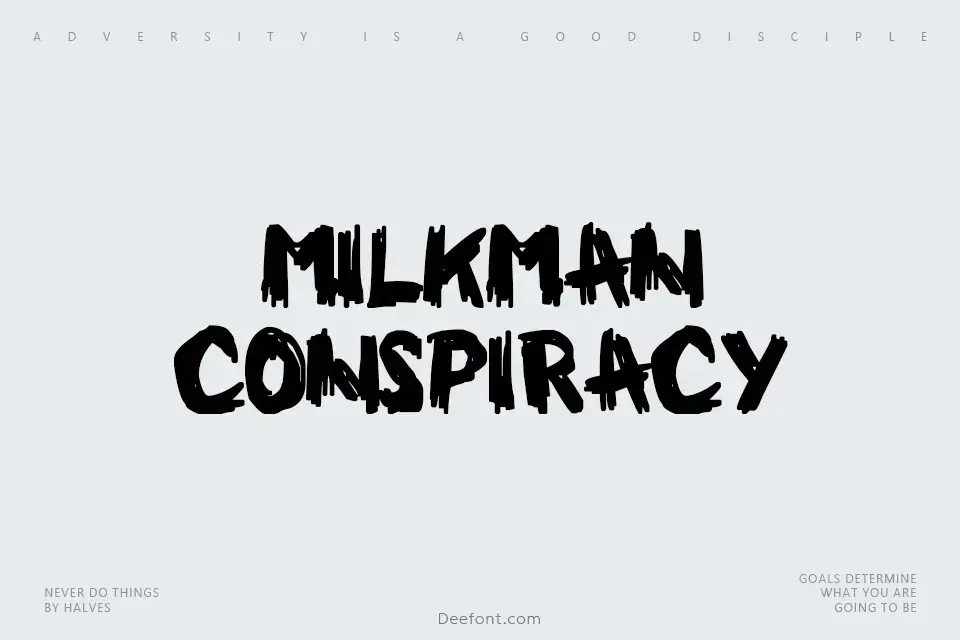
Milkman Conspiracy Font
Milkman Conspiracy is a distinctive script and grunge typeface that channels 1960s and 1970s psychedelic aesthetics with its chunky, bold lettering and playful character. Designed with 653 glyphs, this font excels in display contexts including posters, headlines, magazine covers, and artistic projects requiring vintage flair. Its whimsical, quirky forms make it ideal for creative branding, album artwork, and decorative layouts where retro vibrancy and unconventional personality drive visual impact.****E-mail: angeliq@gmail.com